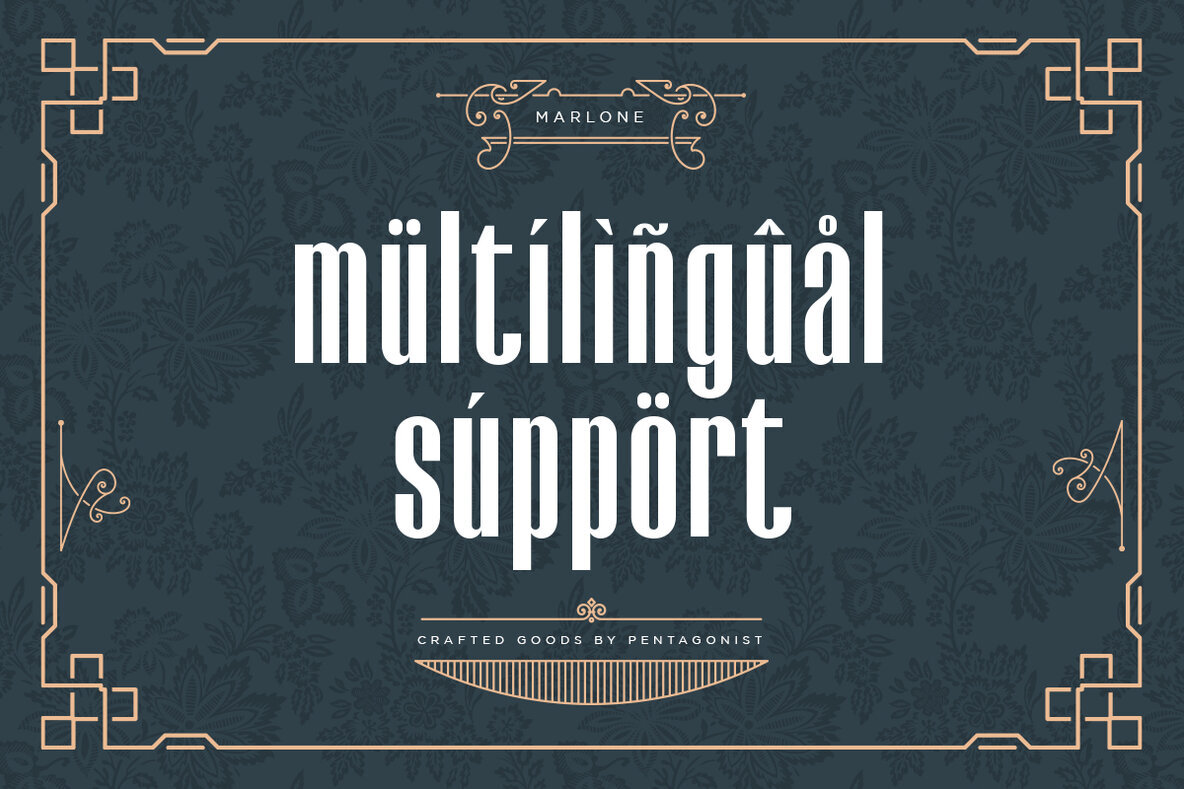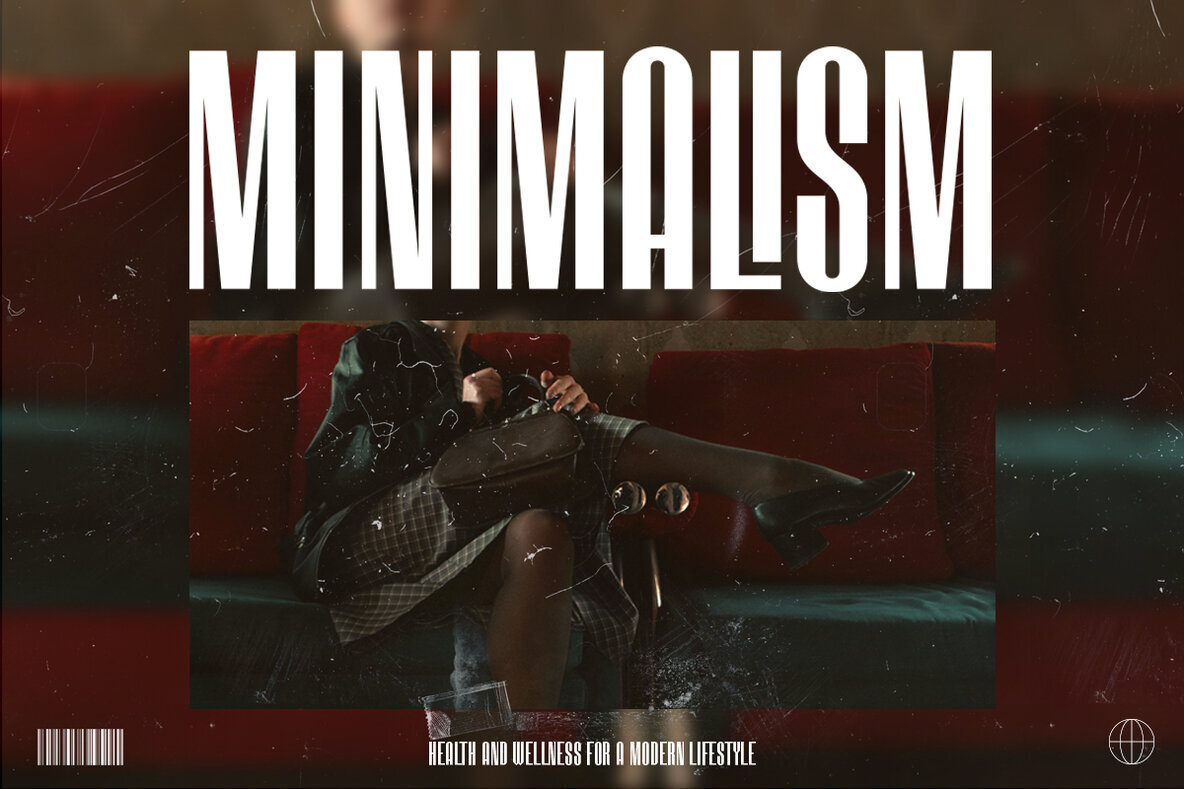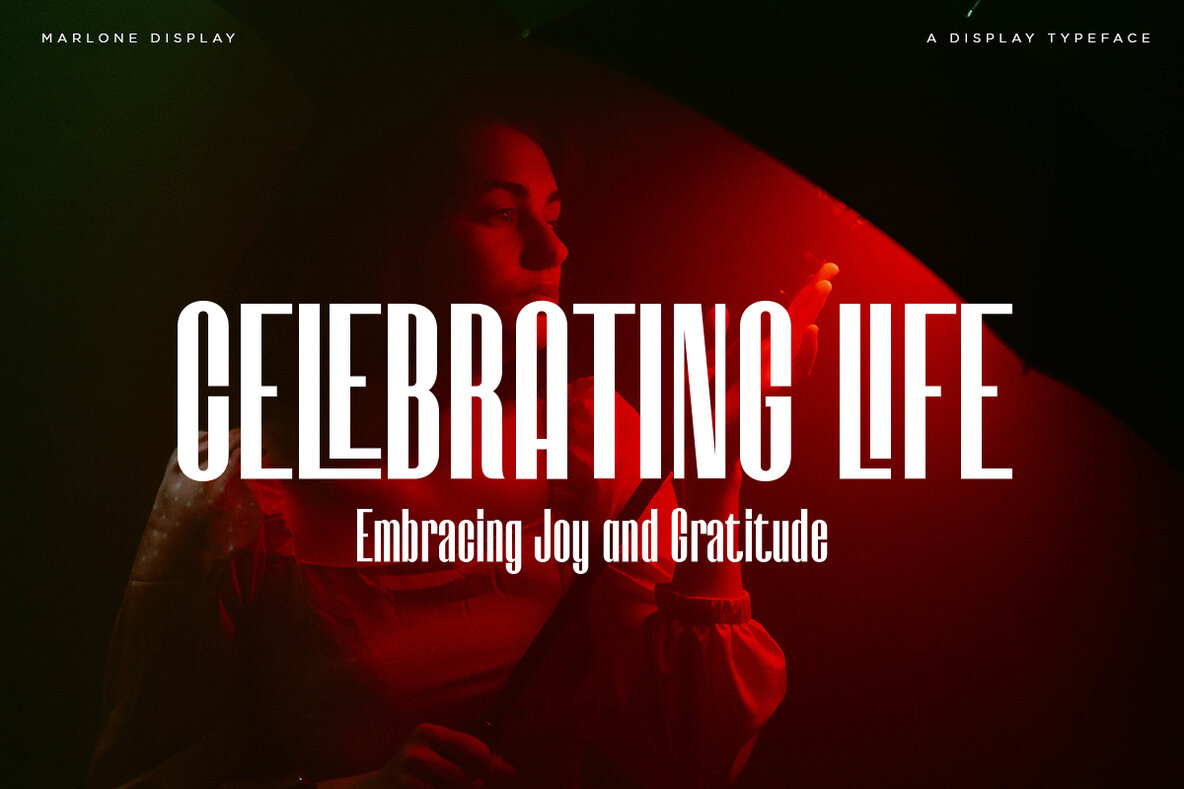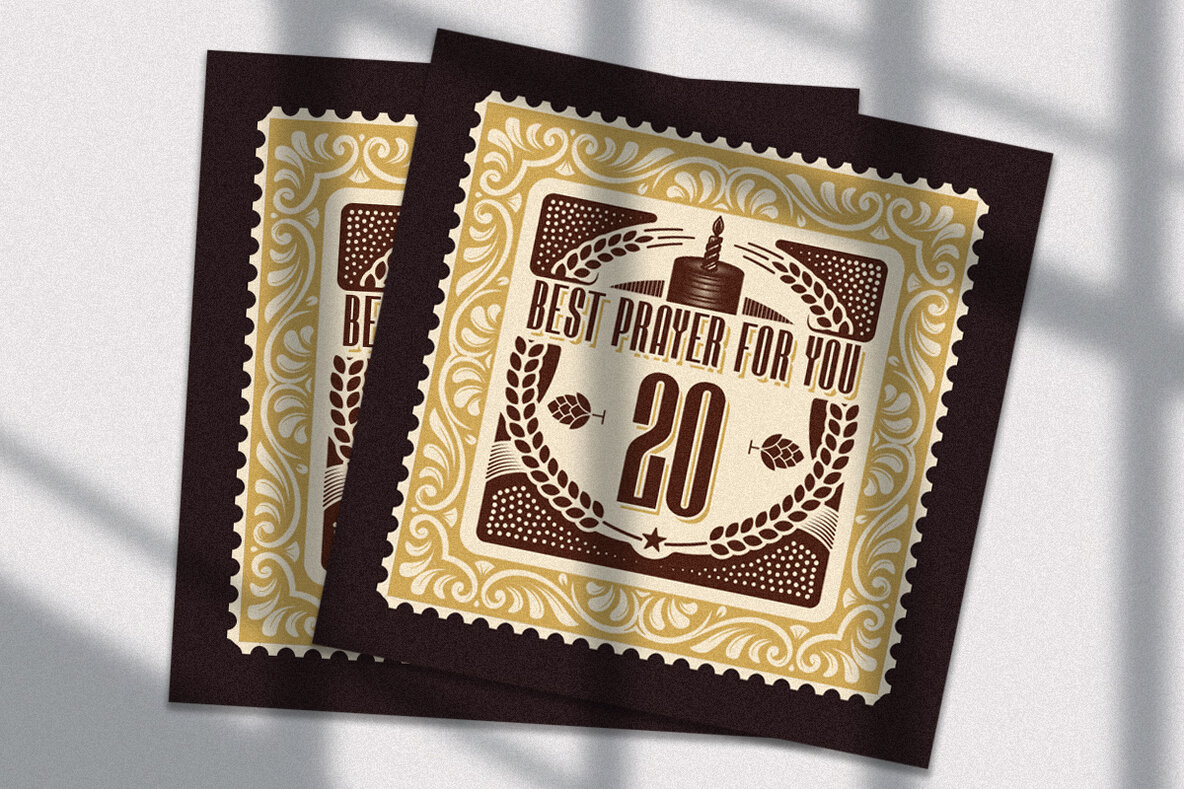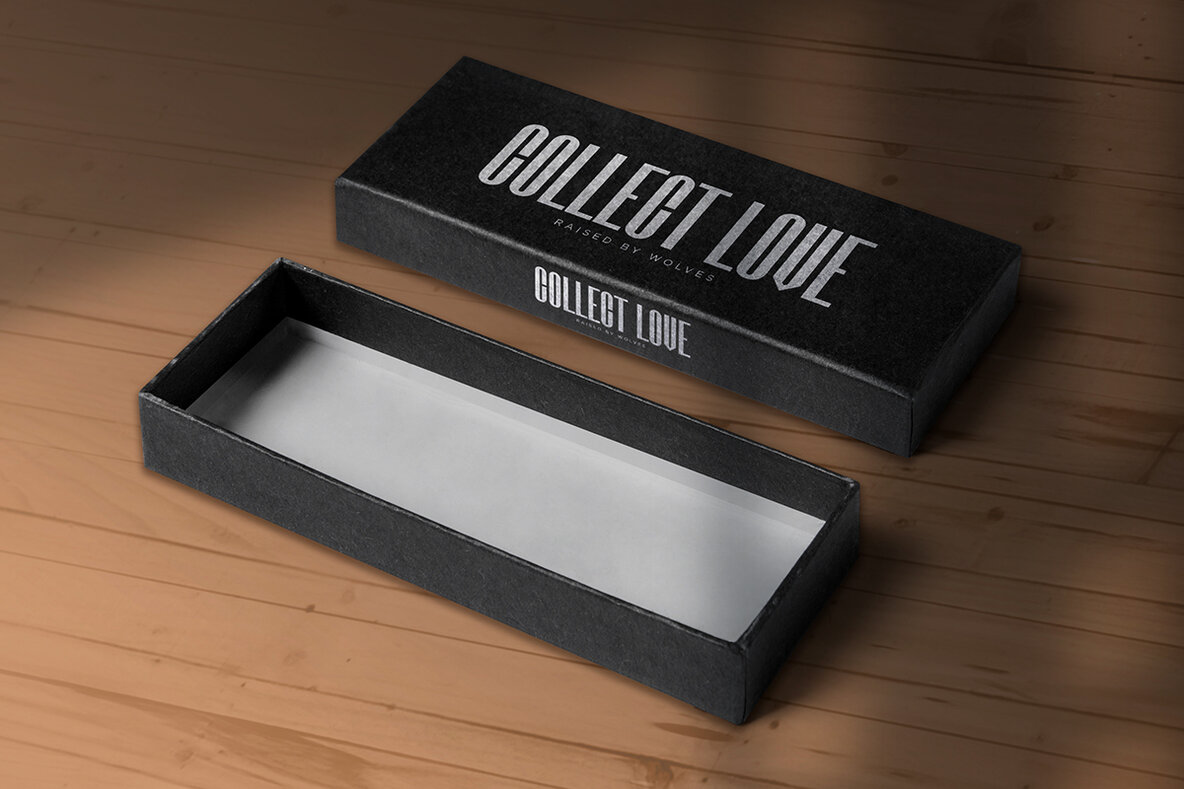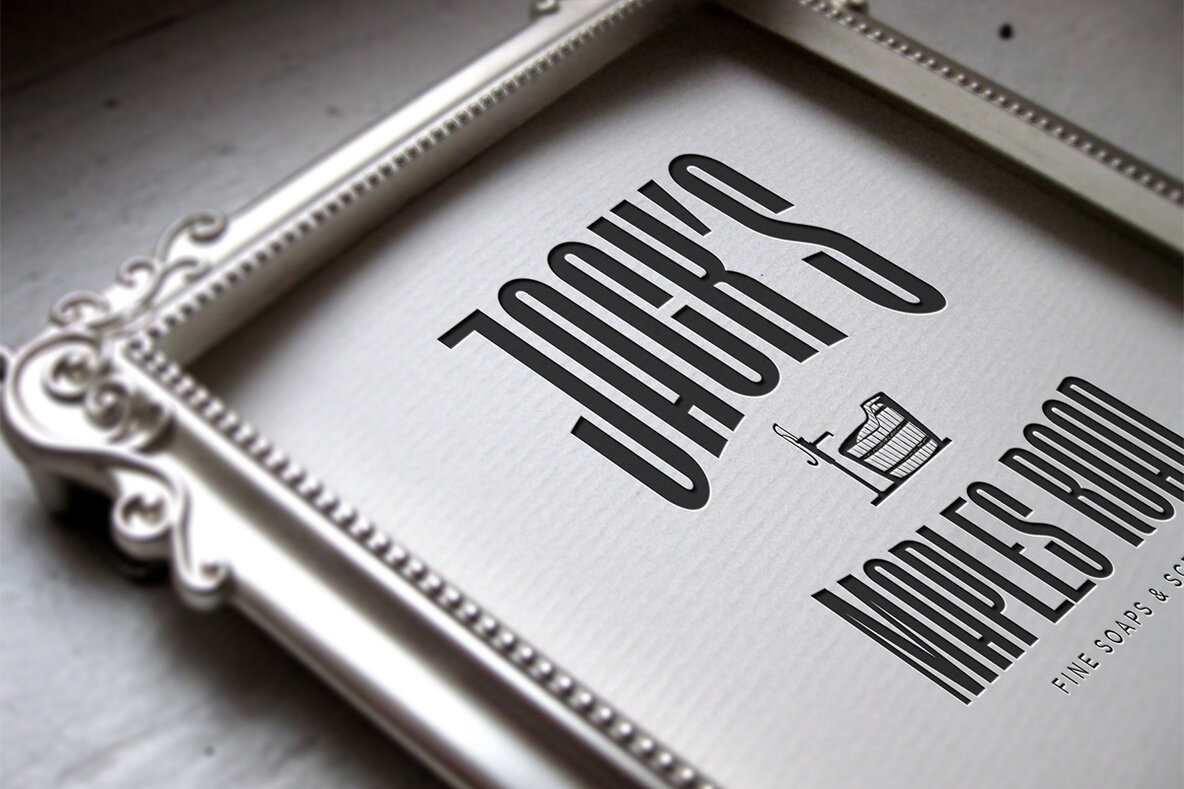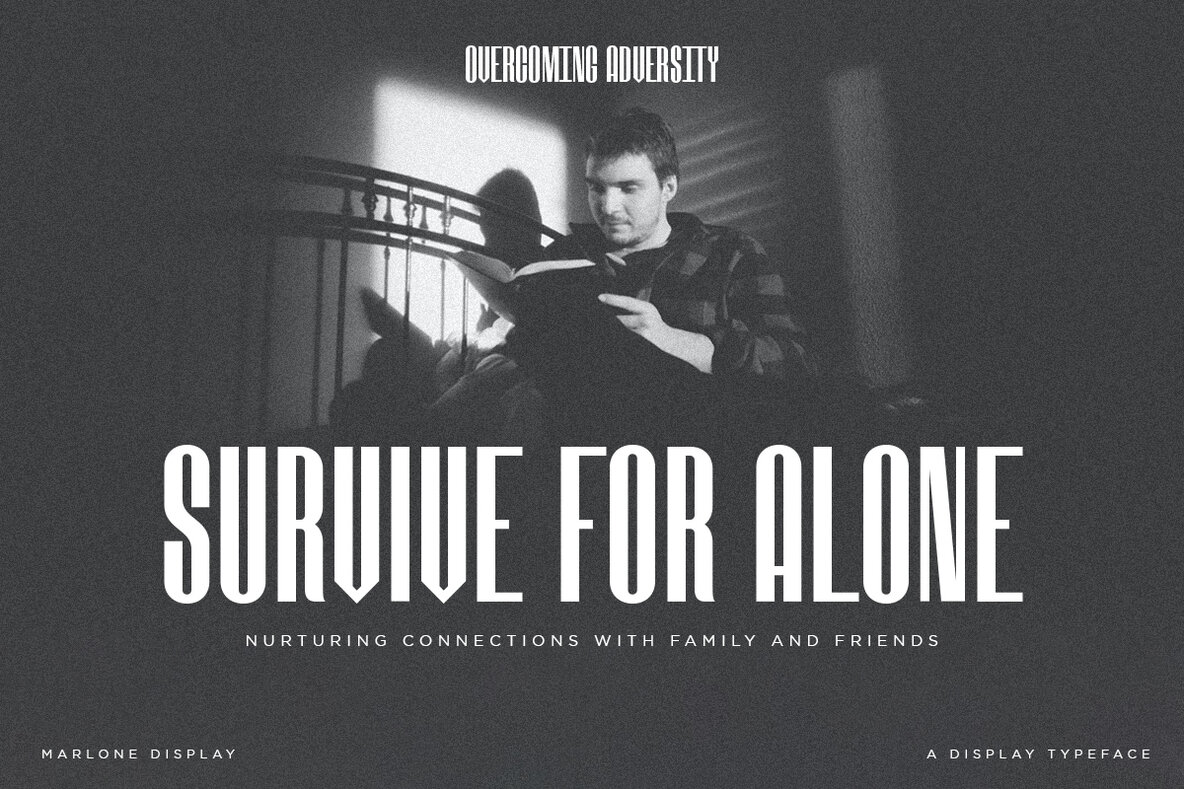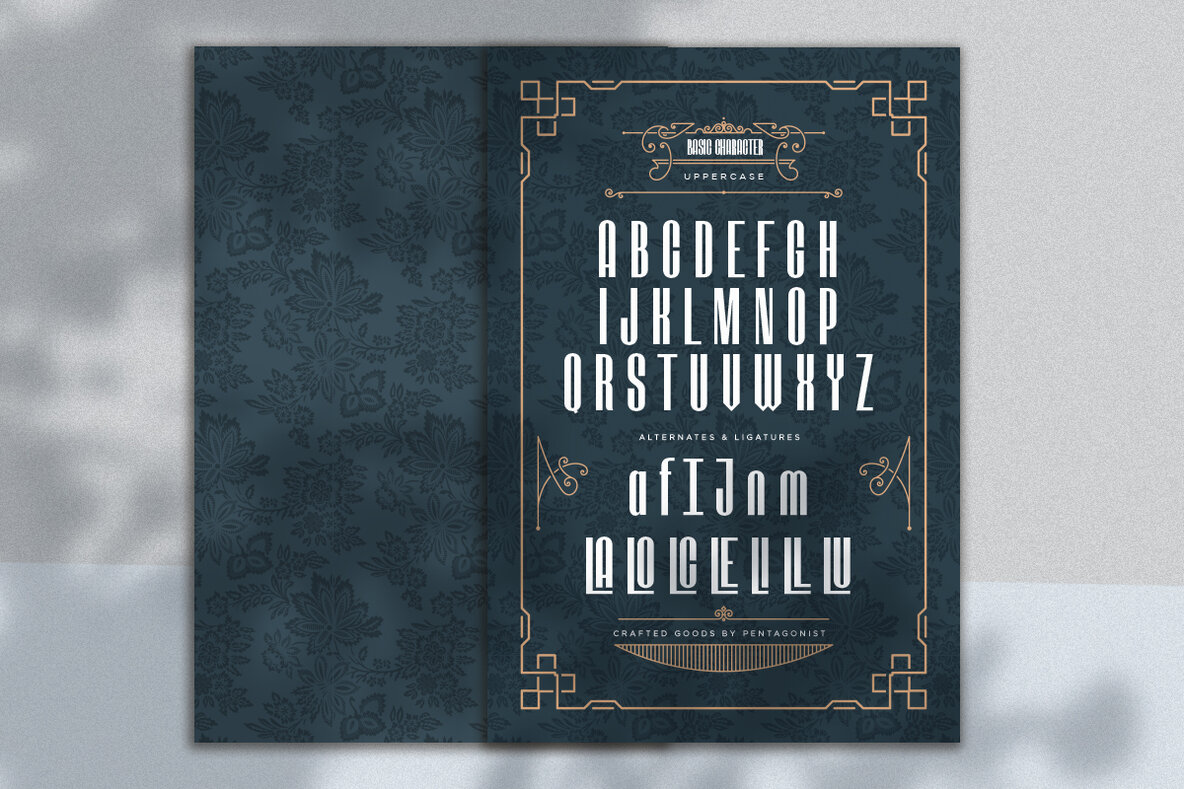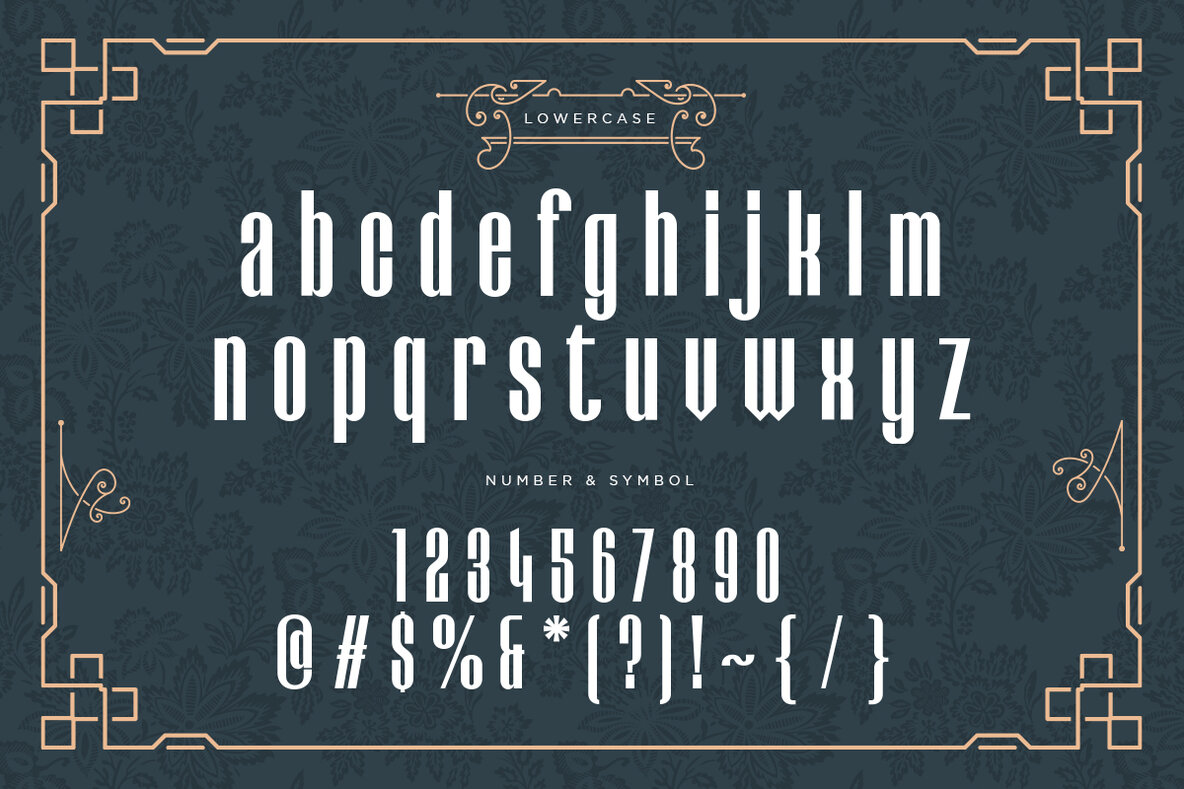
Marlone Font
MARLONE Regular
Marlone is a display typeface inspired by the charm of retro and vintage styles. This captivating font offers a versatile choice for designers seeking a nostalgic yet striking aesthetic for their projects.Marlone: Retro-Inspired Display Typeface